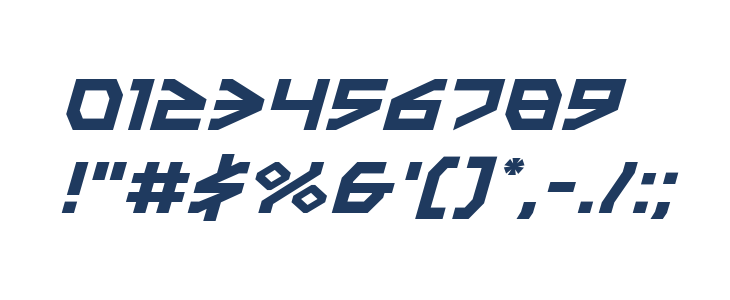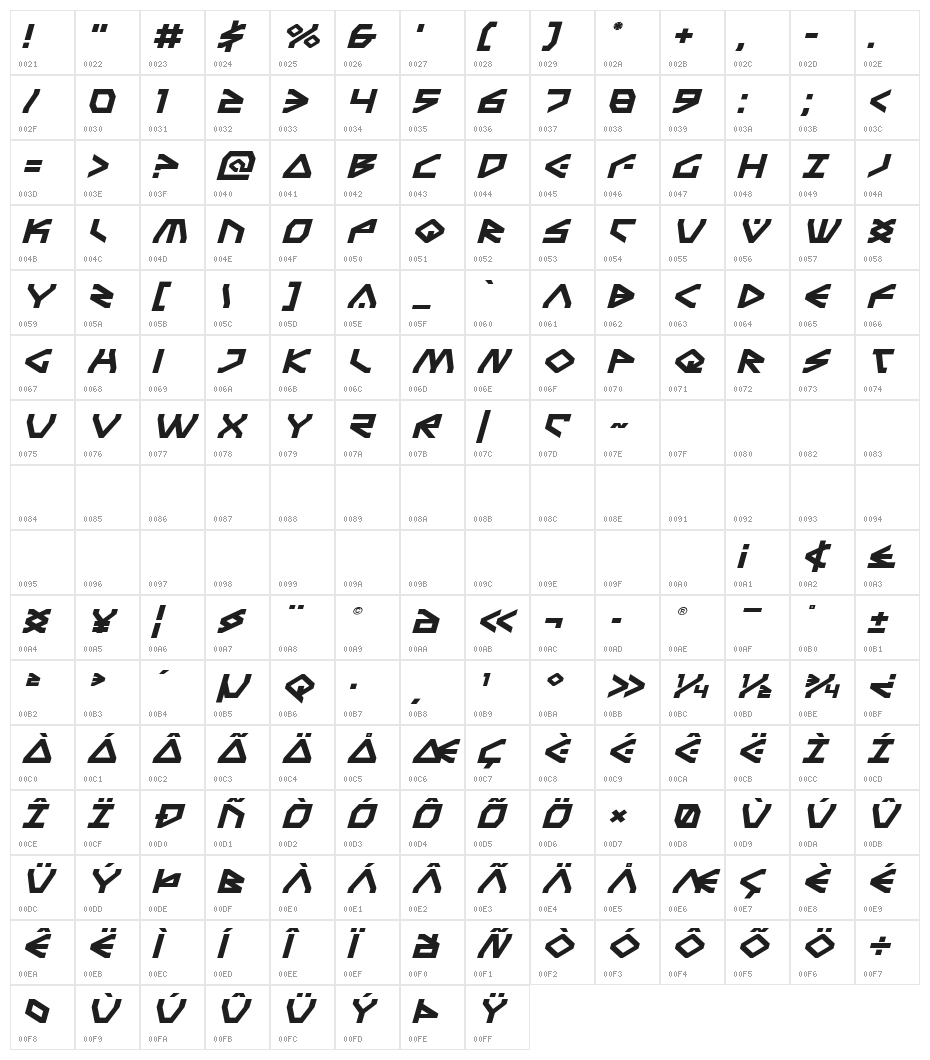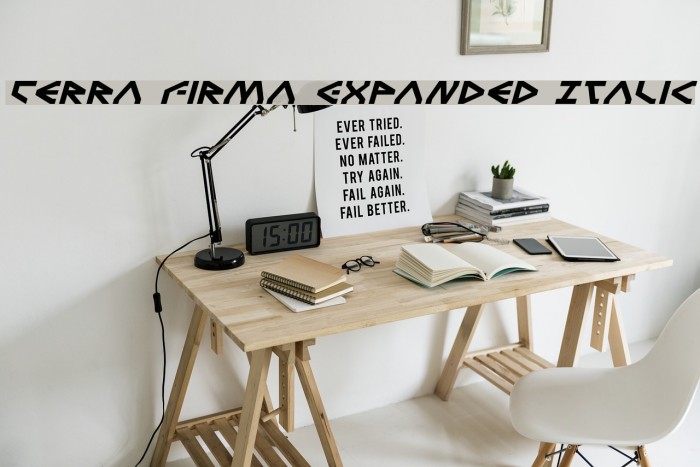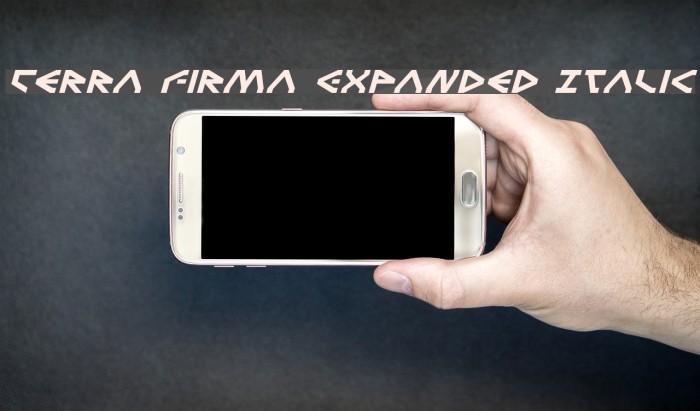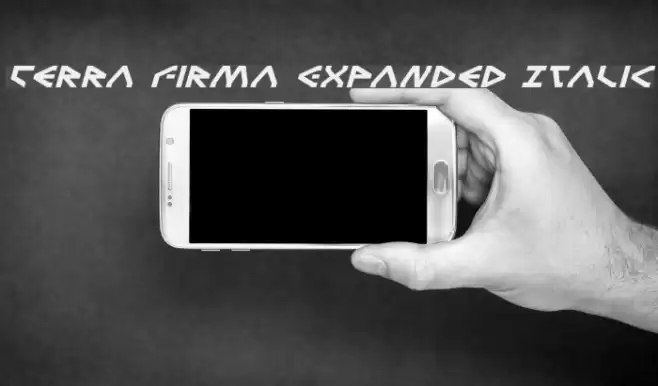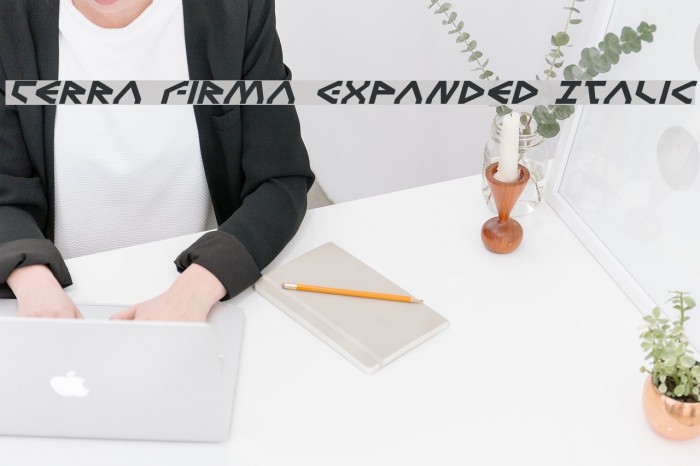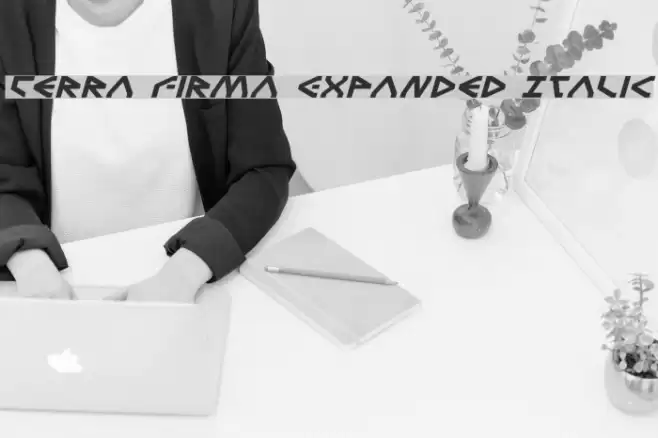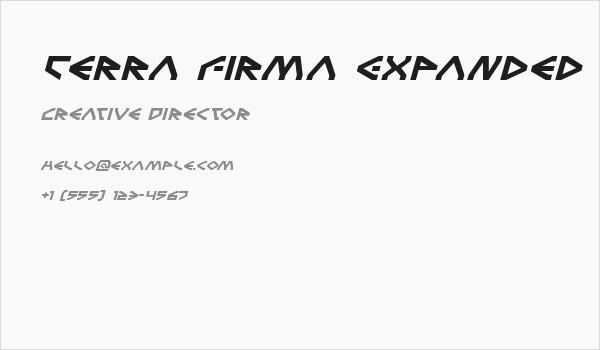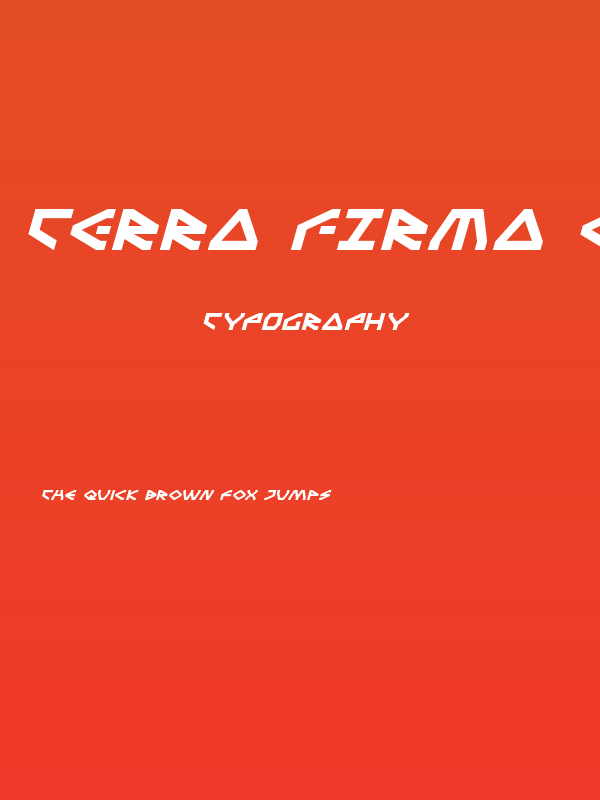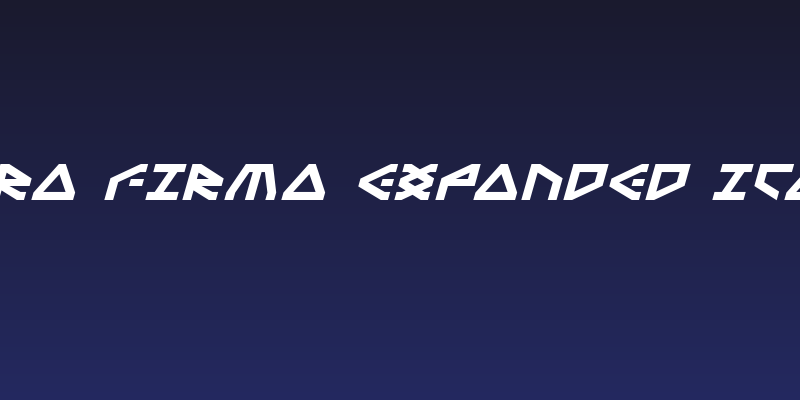
Terra Firma Expanded Italic Font
Terra Firma Expanded Italic Description
This font features a bold and dynamic style with a futuristic flair. Its angular and geometric letterforms create a sense of movement and energy, making it stand out in any design. The expanded width and italic slant add to its unique character, giving it a modern and edgy appearance. The uppercase and lowercase letters maintain a consistent style, while the numbers and special characters are designed to complement the overall aesthetic. This font's strong presence and distinct personality make it ideal for projects that require a bold statement.